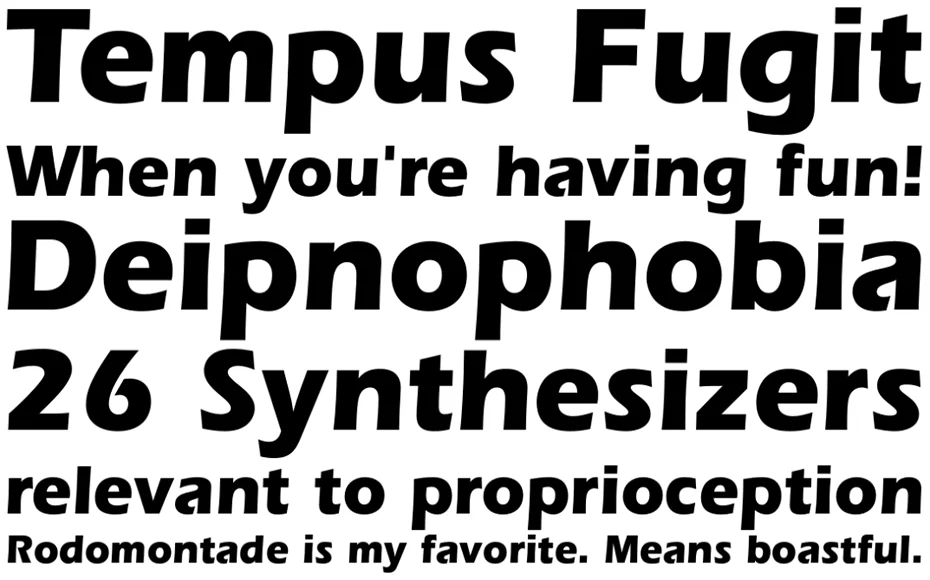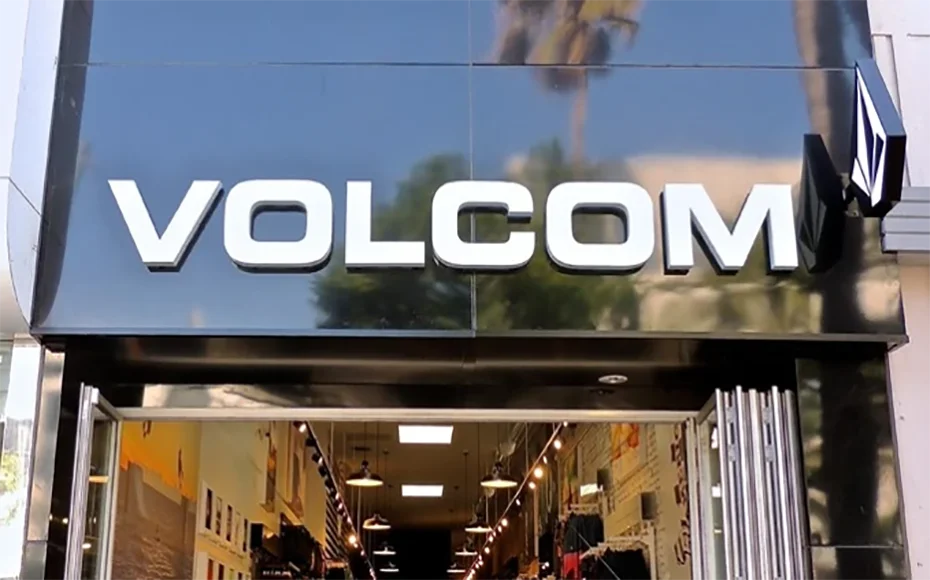
Today we are introducing the logo font! Volcom is the name of a sportswear brand founded in 1991 in Southern California.
Today, Volcom is one of the world’s premier brands in the clothing and accessories market for sports such as ice-, surf- and skateboarding, and nearby sports lifestyles.
It now has a total of 38 outlets worldwide and the number is growing rapidly. The font used for this brand’s logo is very close to the Eras Bold font. A font with a bold texture that is ideal for titles.
It was designed by two French designers, Albert Hollenstein and Albert Button. The International Typeface Corporation (ITC) reserved all rights to the font family after January 1, 2000.
Font Designer:Albert Hollenstein, Albert Boton
Each letter includes in the logo font that testifies to the creators’ experience and assignments.
Along with its legibility and great power, it can be used for logos, brochure making, greeting designs, birthday cards, banner ads, book covers, movie posters, product packaging, t-shirt printing, advertisements, and so on.